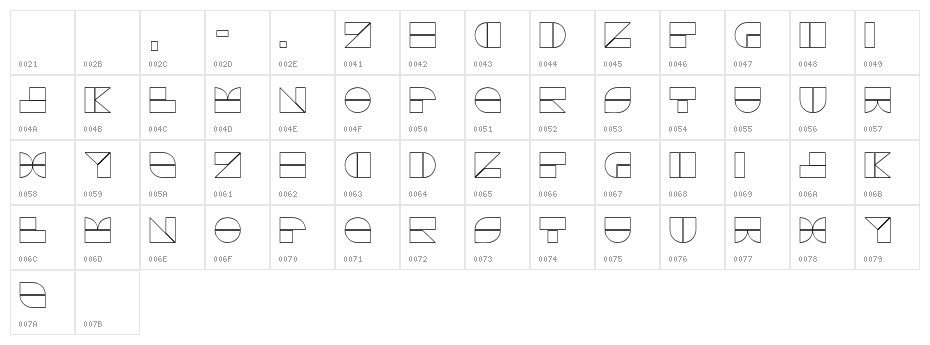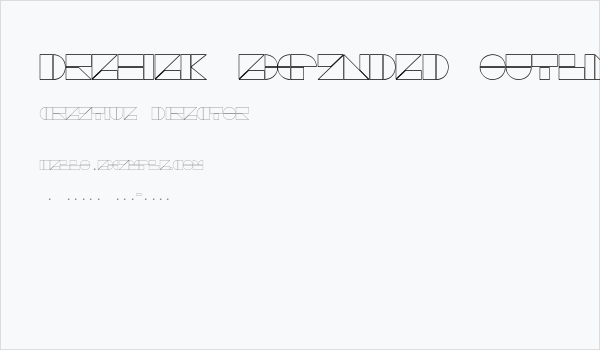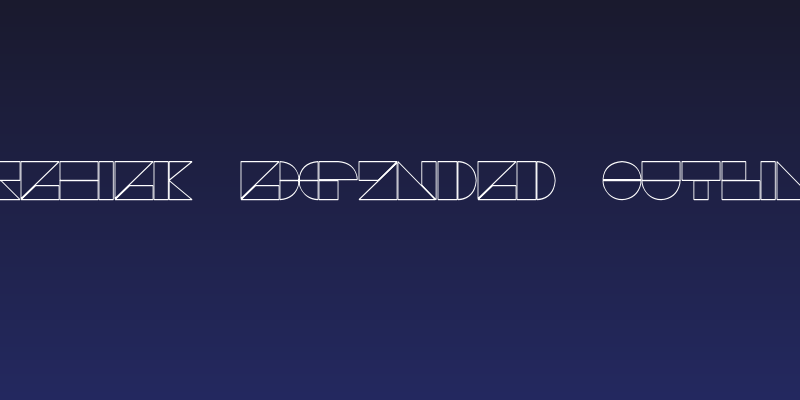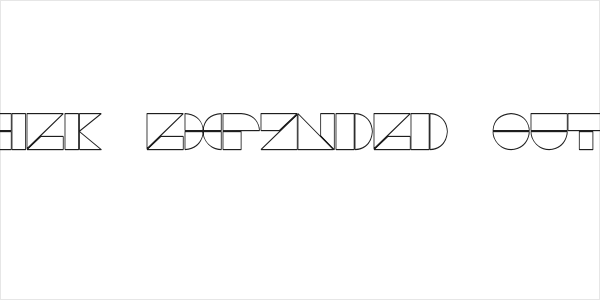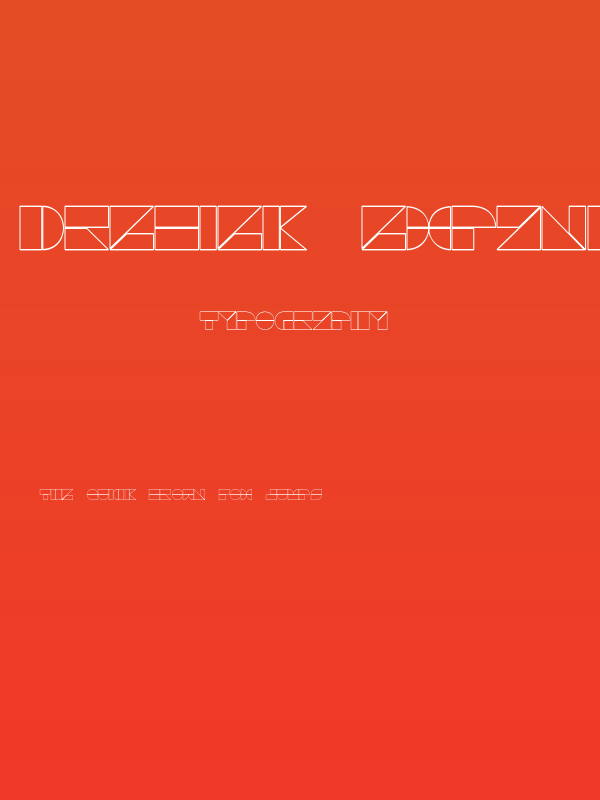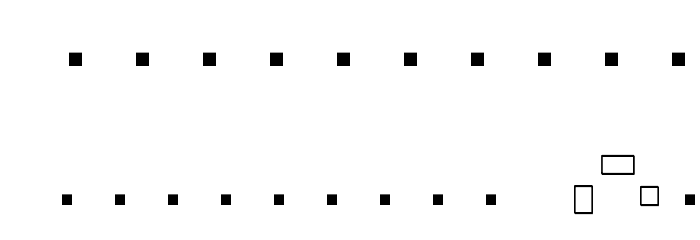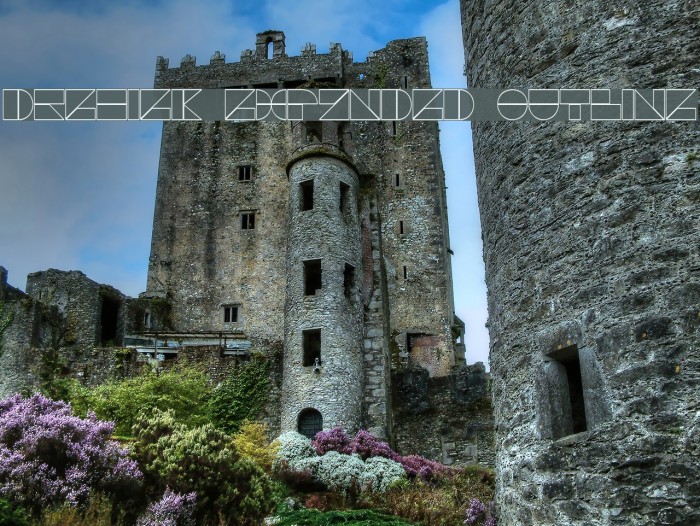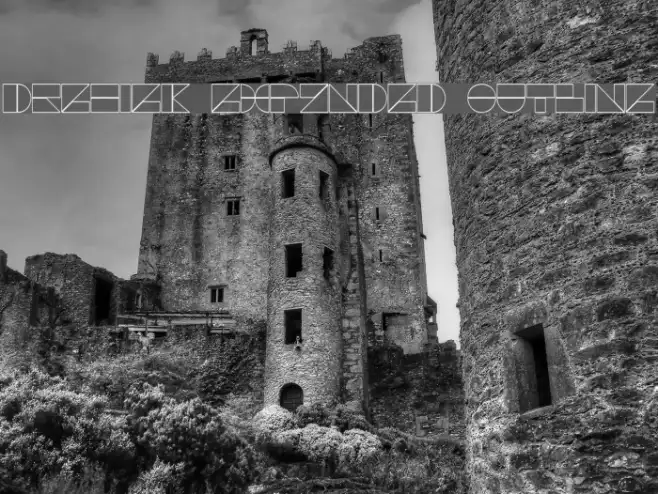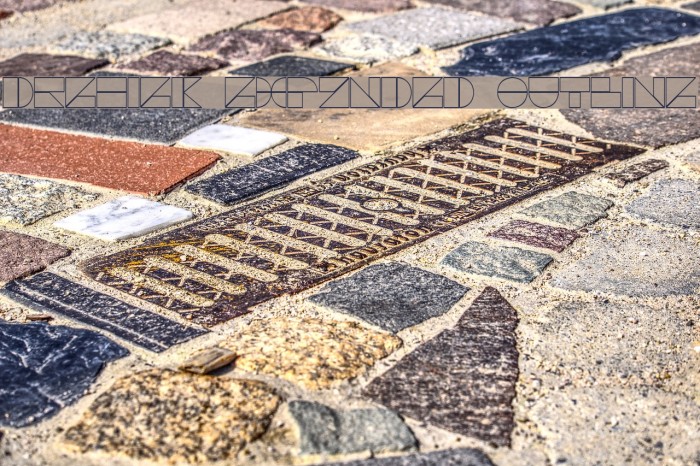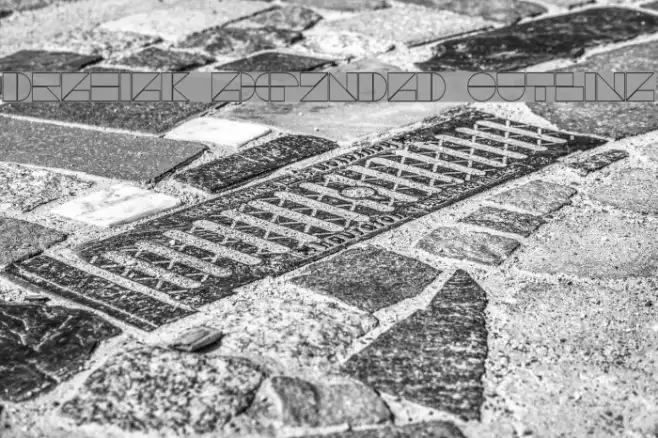
Drebiek Expanded Outline Font
Drebiek Expanded Outline Description
This font features a geometric and futuristic design with an expanded outline style. Each character is constructed using bold, angular lines and shapes, creating a sense of modernity and innovation. The uppercase letters are particularly striking, with a blend of straight edges and curves that form a cohesive and visually appealing set. The lowercase letters maintain the same structural integrity, ensuring consistency throughout. The numerals and special characters are designed to match the overall aesthetic, making this font suitable for creative and contemporary projects.